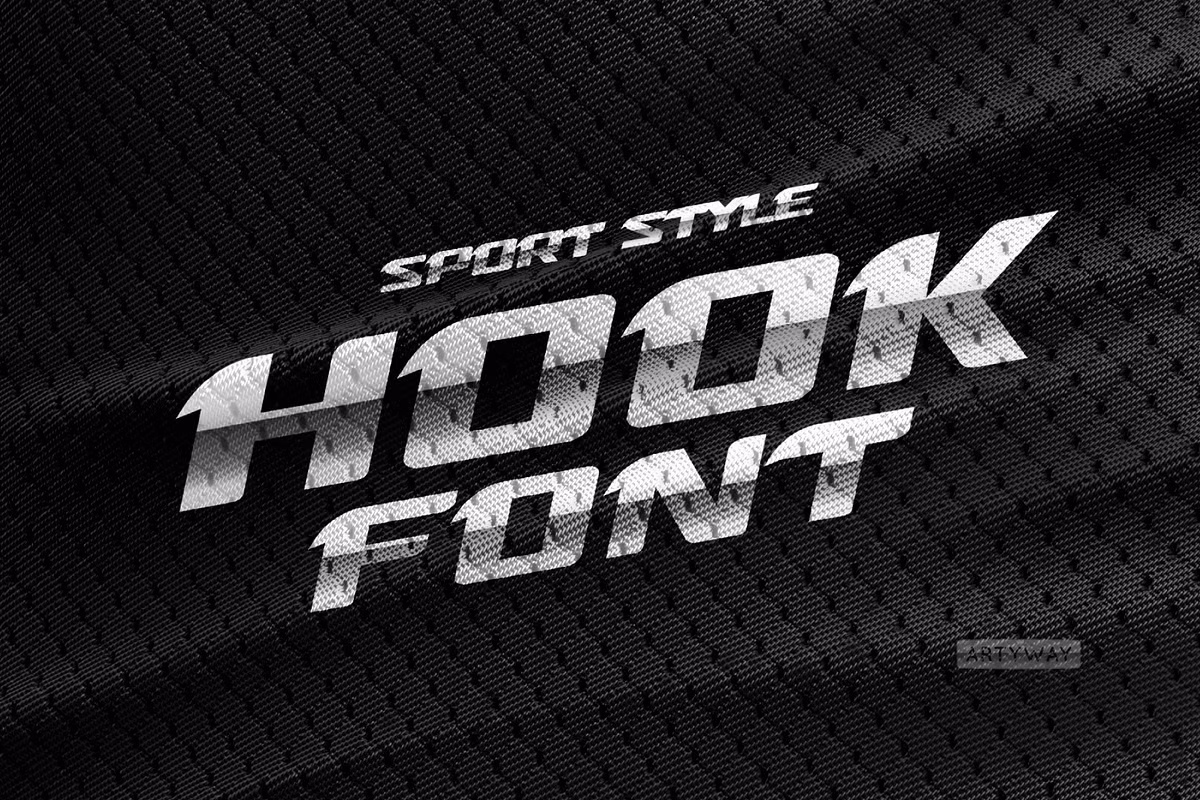
Hook Headline Font Free Download is a bold, punchy typeface designed to grab attention and never let go. With its clean lines and impactful presence, this font is ideal for headlines, advertising, product packaging, posters, and any design that needs to make a strong first impression.
Hook Headline Font Free Download is all about clarity and strength—crafted to elevate your message in both print and digital formats. Its modern structure and tight kerning give it a sharp, professional look that fits seamlessly into marketing campaigns, bold branding, and editorial layouts.
Whether you're designing for a tech brand, launching a new product, or creating eye-catching social content, this font hooks the viewer from the very first glance. Pair it with subtle subheadings or let it stand alone as a visual anchor—it thrives either way.
Ready to reel in attention? Hook is your headline hero.